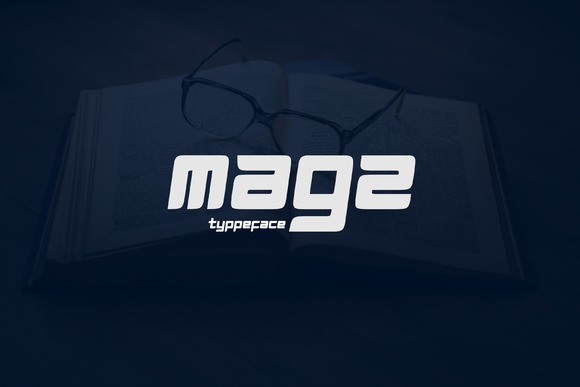
Discover Magz Font: A Contemporary Sans Serif Masterpiece
In a digital world saturated with visual noise, your brand's message must cut through the clutter and leave an unforgettable impression. Enter Magz Font, the epitome of modern sophistication, designed to elevate your designs and captivate your audience.
Magz Font is not just a collection of letters and symbols; it's an artistic expression, a visual symphony that dances across your screens with grace and elegance. Its smooth, flowing lines and beautiful curves create a sense of harmony and visual appeal that will make your designs shine.
This remarkable sans serif font family exudes a timeless charm, transcending fleeting trends and delivering a classic aesthetic that will stand the test of time. Its clean, minimalist design ensures readability and clarity, making it ideal for a wide range of applications, from captivating headlines to informative body text.
Whether you're a seasoned designer seeking to elevate your projects or a budding entrepreneur looking to make a lasting impact, Magz Font is the perfect choice for you. Its versatility knows no bounds; it seamlessly adapts to any design style, effortlessly enhancing brochures, websites, social media posts, and even logos.
With Magz Font, your words will leap off the screen, captivating your audience and leaving a lasting impression. Its carefully crafted characters possess a magnetic charm that draws readers in, ensuring your message is heard loud and clear.
So, why settle for ordinary when you can embrace the extraordinary? Embrace Magz Font today and unleash your creativity like never before. Let its timeless elegance and captivating beauty elevate your designs to new heights, leaving an unforgettable mark on the hearts and minds of your audience.